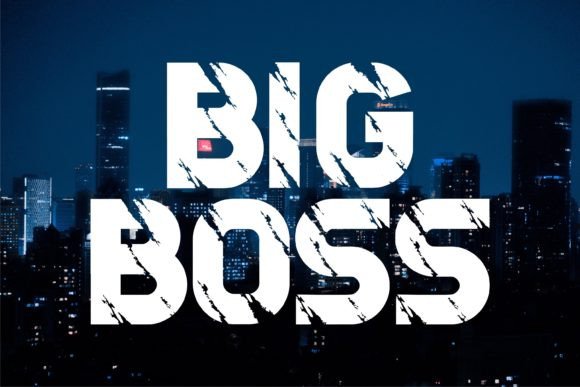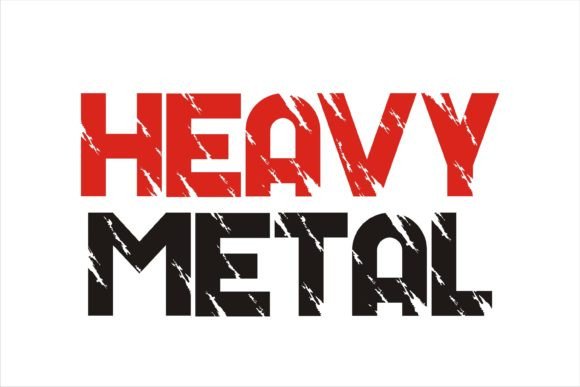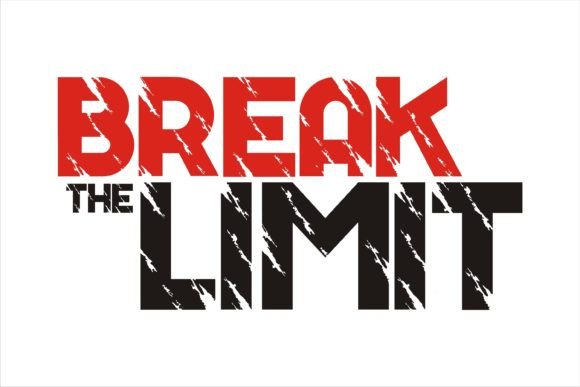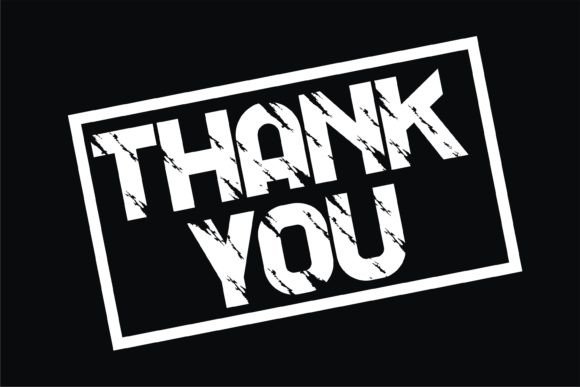
Breaking the Mold: The Rise of City Grunge Font
Do you remember the first time you saw a bold, gritty font that screamed rebellion? For many designers, that moment sparked a creative fire that never faded. It’s a feeling that can be attributed to the power of typography, and one font in particular: City Grunge Font.
This font embodies the spirit of destruction and breaking free from the norm, making it a perfect fit for youth culture and extreme activities. From music to fashion, City Grunge Font is the ultimate tool for designers who want to make a statement. With its edgy design, it’s no wonder why it’s a favorite among creatives looking to push the boundaries of style.
Whether you’re designing a t-shirt, hat, or cellphone case, City Grunge Font is the perfect addition to any youth-themed project. Its value lies in its versatility and ability to evoke a sense of rebellion, making it a must-have for any designer looking to break the mold.
City Grunge Font Key Features
- Font Styles: The City Grunge Font includes 6 unique font styles, each with its own distinct character and texture, to help you create a gritty, urban look.
- Unique Characteristics: The City Grunge Font features distressed textures, worn edges, and a rough, urban feel, making it perfect for creating a gritty, industrial look.
City Grunge Font Review
Overall, I’m really impressed with the gritty, urban feel that the City Grunge Font brings to a design. It’s perfect for creating a rugged, edgy aesthetic that’s reminiscent of city streets. ✨ The font’s distressed texture adds a nice layer of depth and visual interest, making it stand out from more polished fonts.
Some of the things that work well with City Grunge Font include:
- Its versatility – it can be used for a wide range of designs, from logos to signage to advertising materials
- Its ability to convey a sense of grit and urbanity
- Its customizability – you can adjust the texture and color to fit your design needs
- It may be too bold or overpowering for some designs
- The distressed texture can sometimes be distracting or overwhelming
- It may not be suitable for more formal or elegant designs
⚠️ I’d recommend using City Grunge Font sparingly and in moderation to avoid overwhelming your design. With the right balance and context, it can be a really effective choice.
Tips for Getting the Most Out of City Grunge Font
For the best results, use the City Grunge font in conjunction with distressed textures and bold colors to create a gritty, urban aesthetic.
Experiment with different font sizes and styles to achieve a dynamic, eye-catching effect.
The City Grunge font is ideal for:
- Urban-themed designs and marketing materials.
- Rock music and concert posters.
- Edgy, avant-garde art projects.